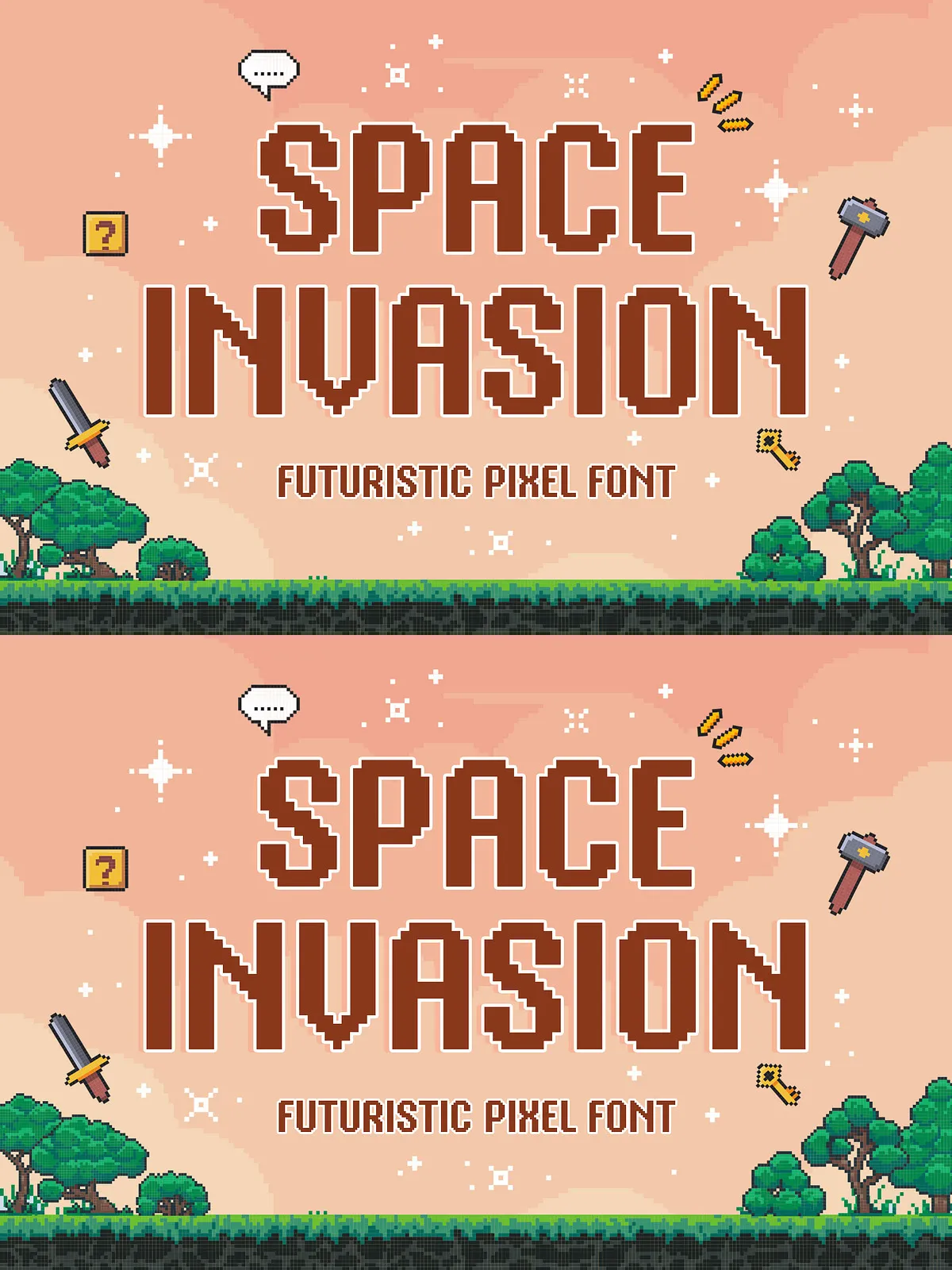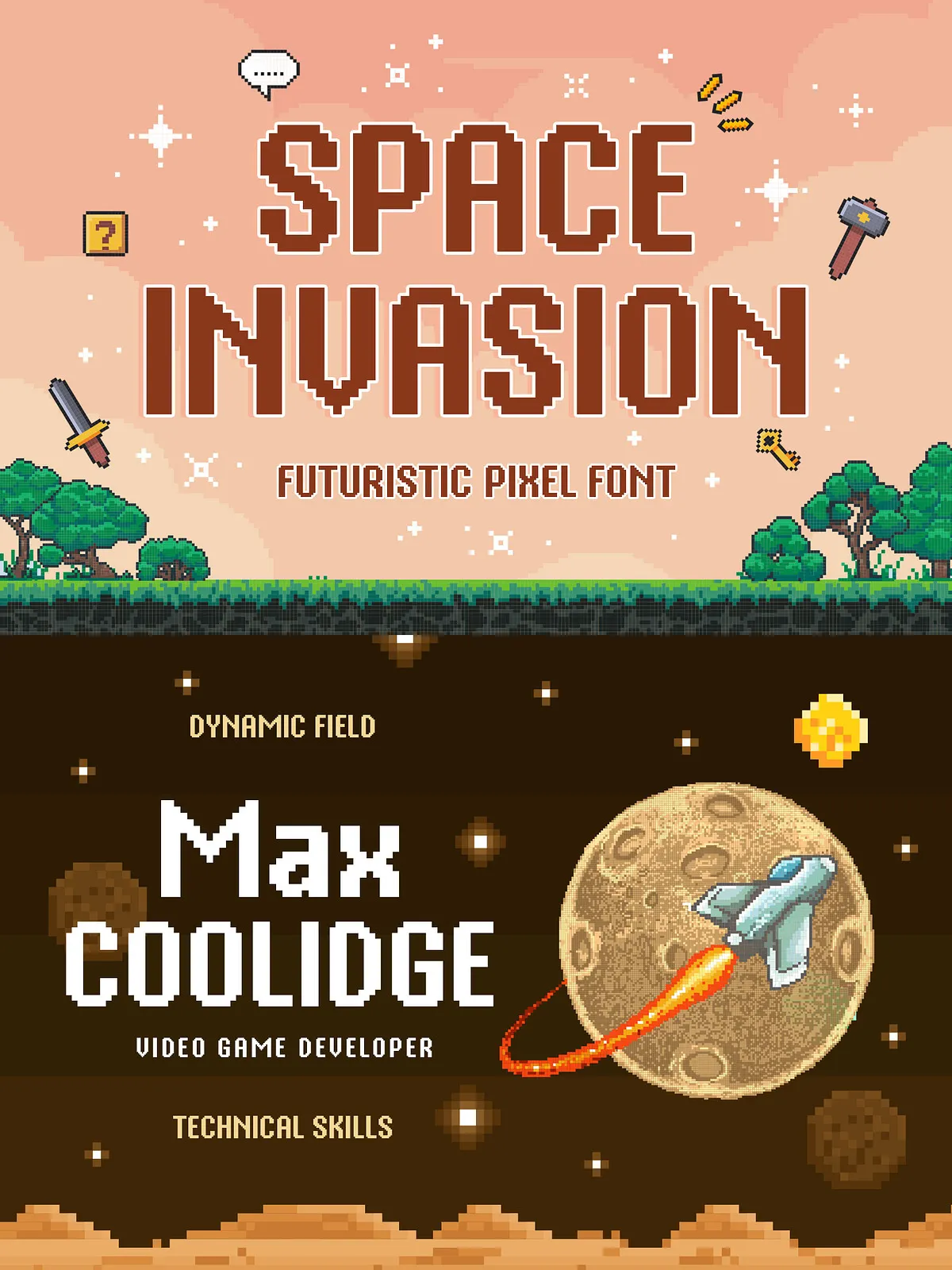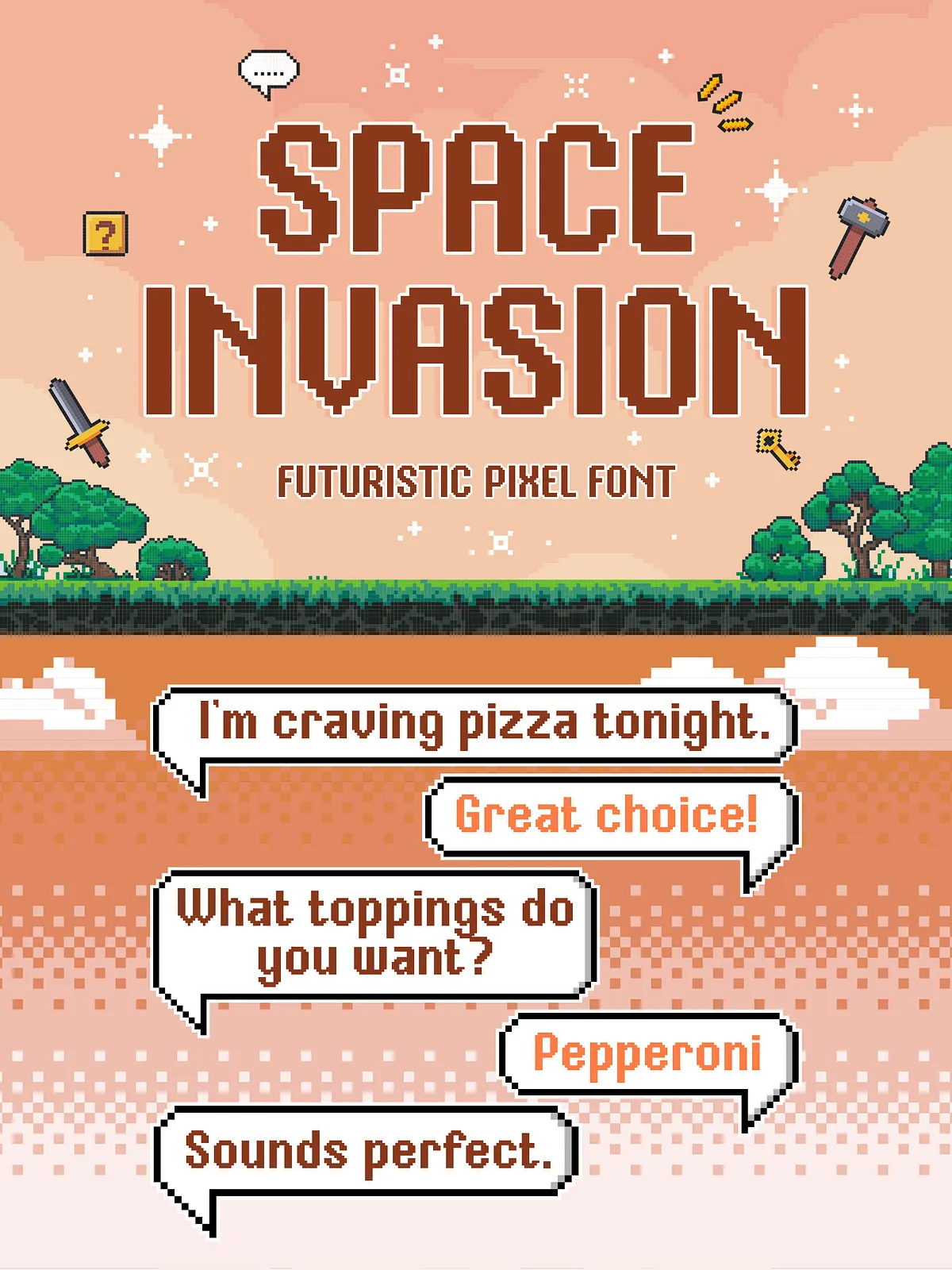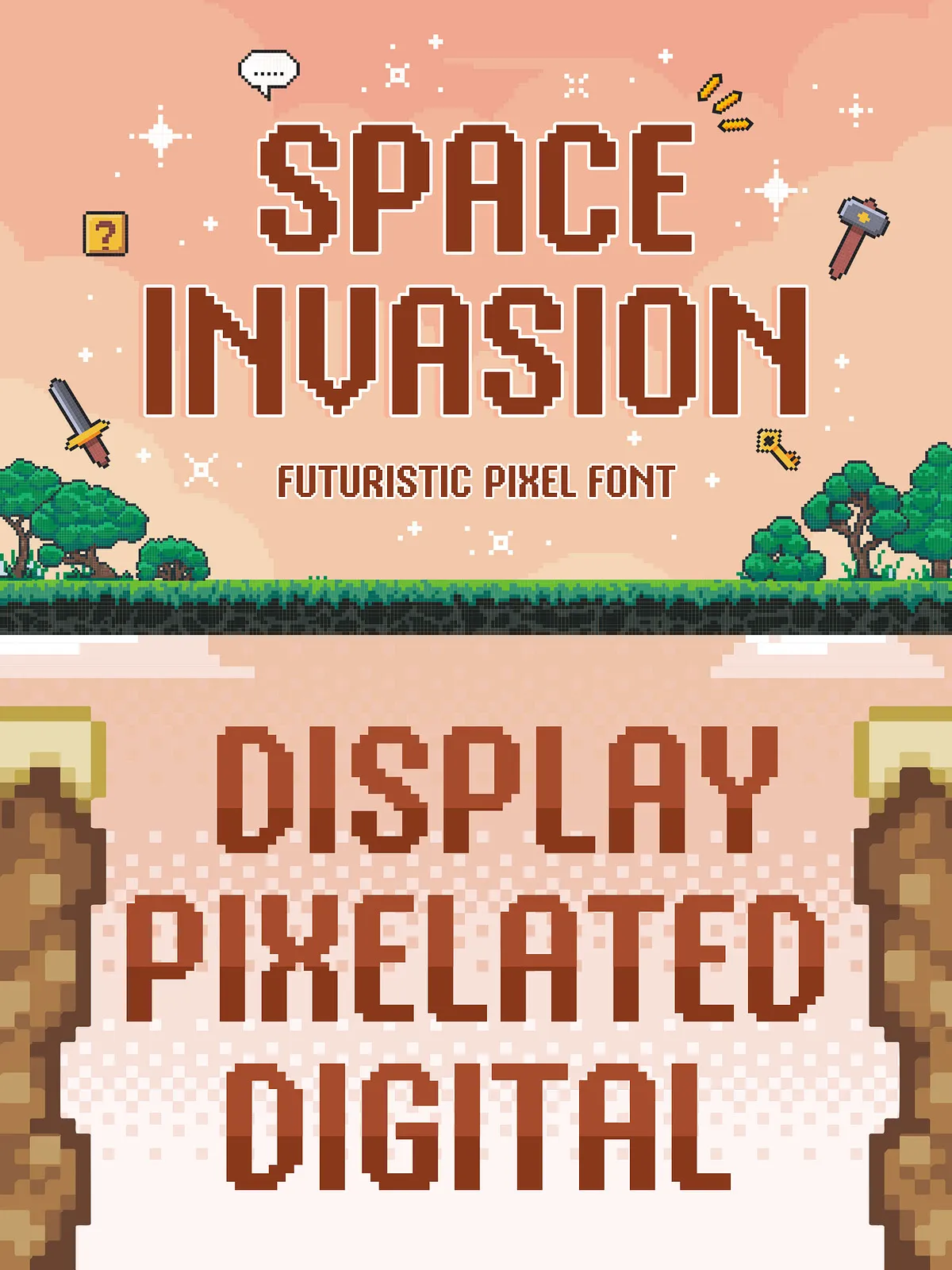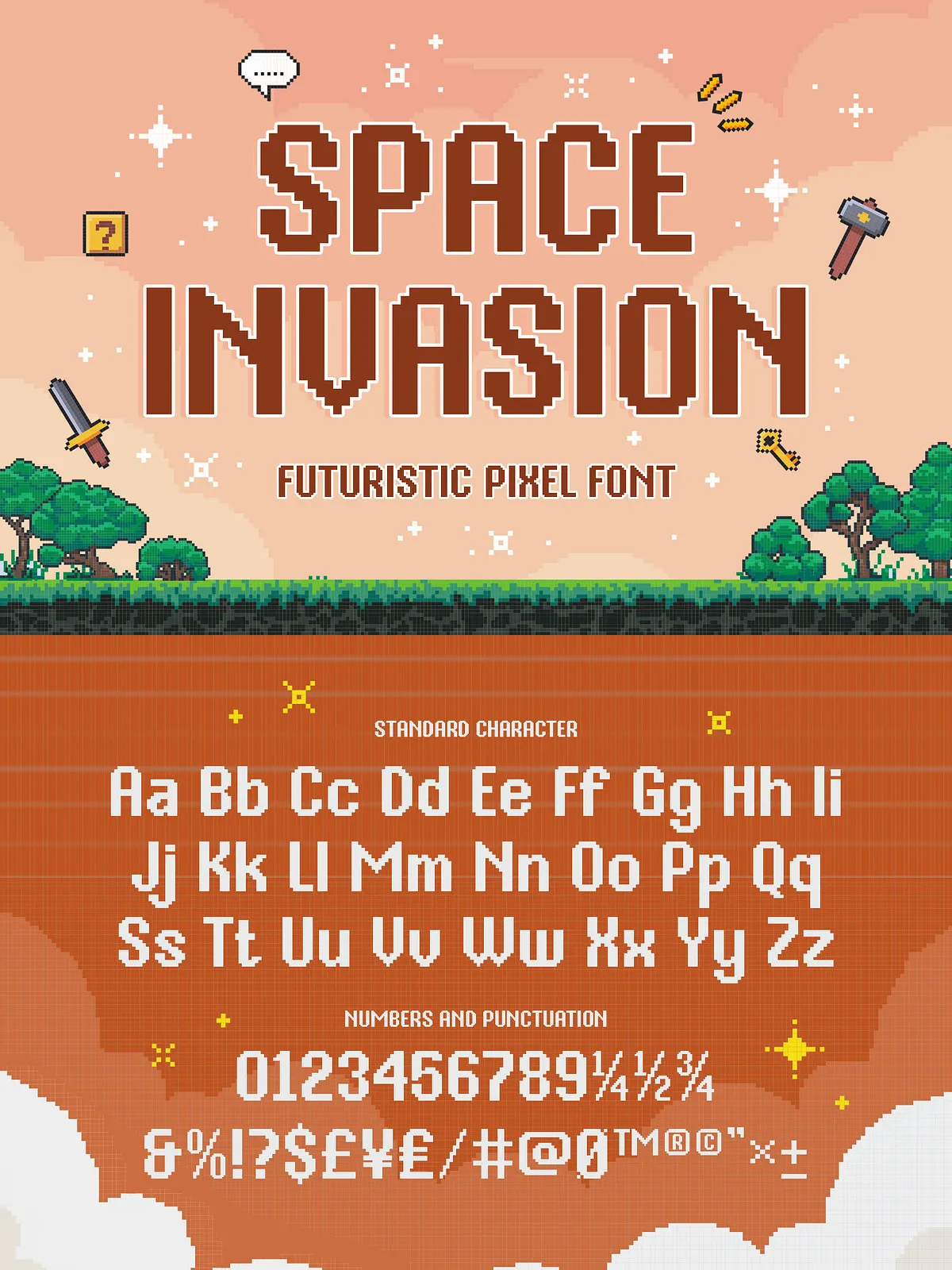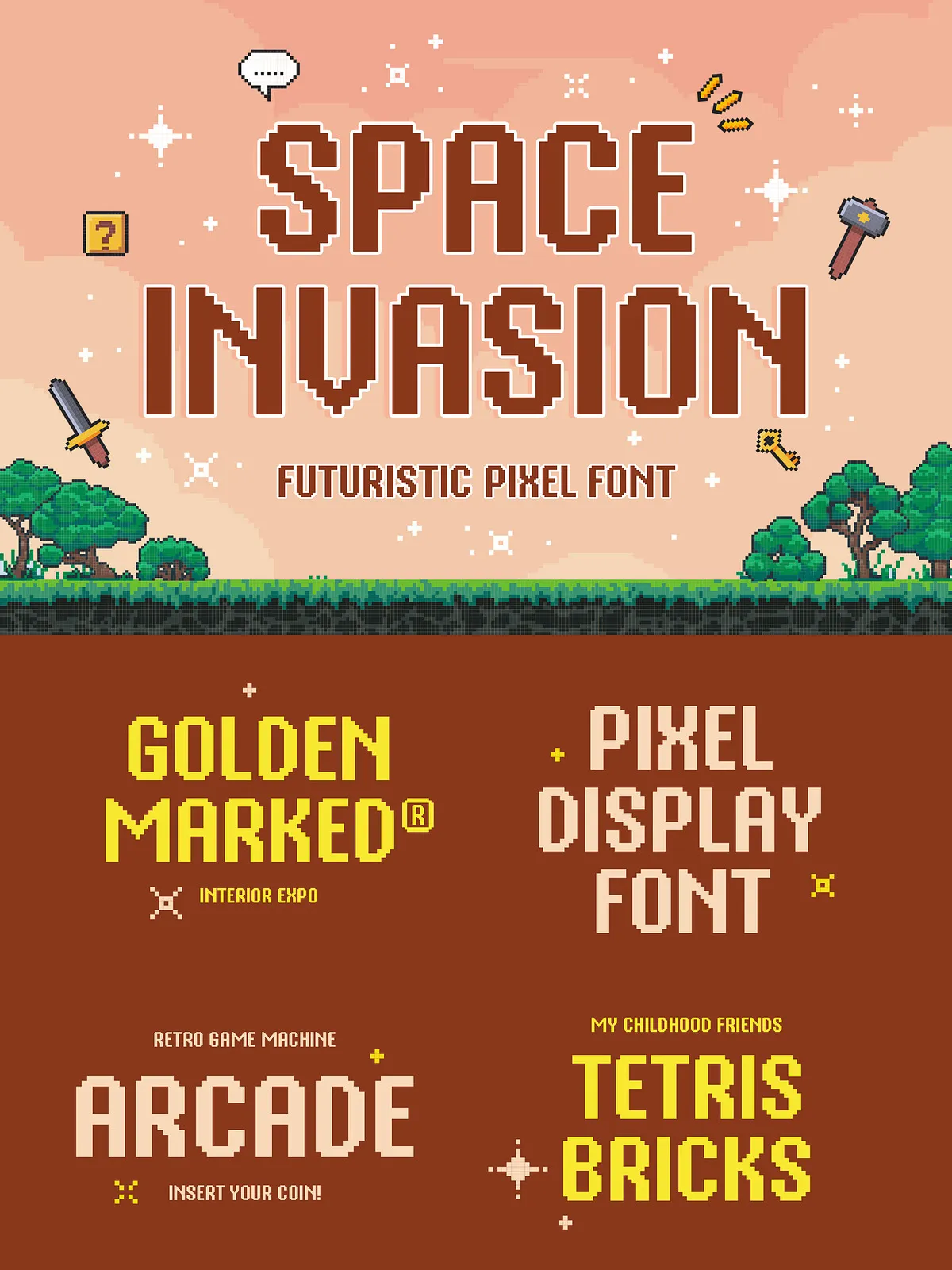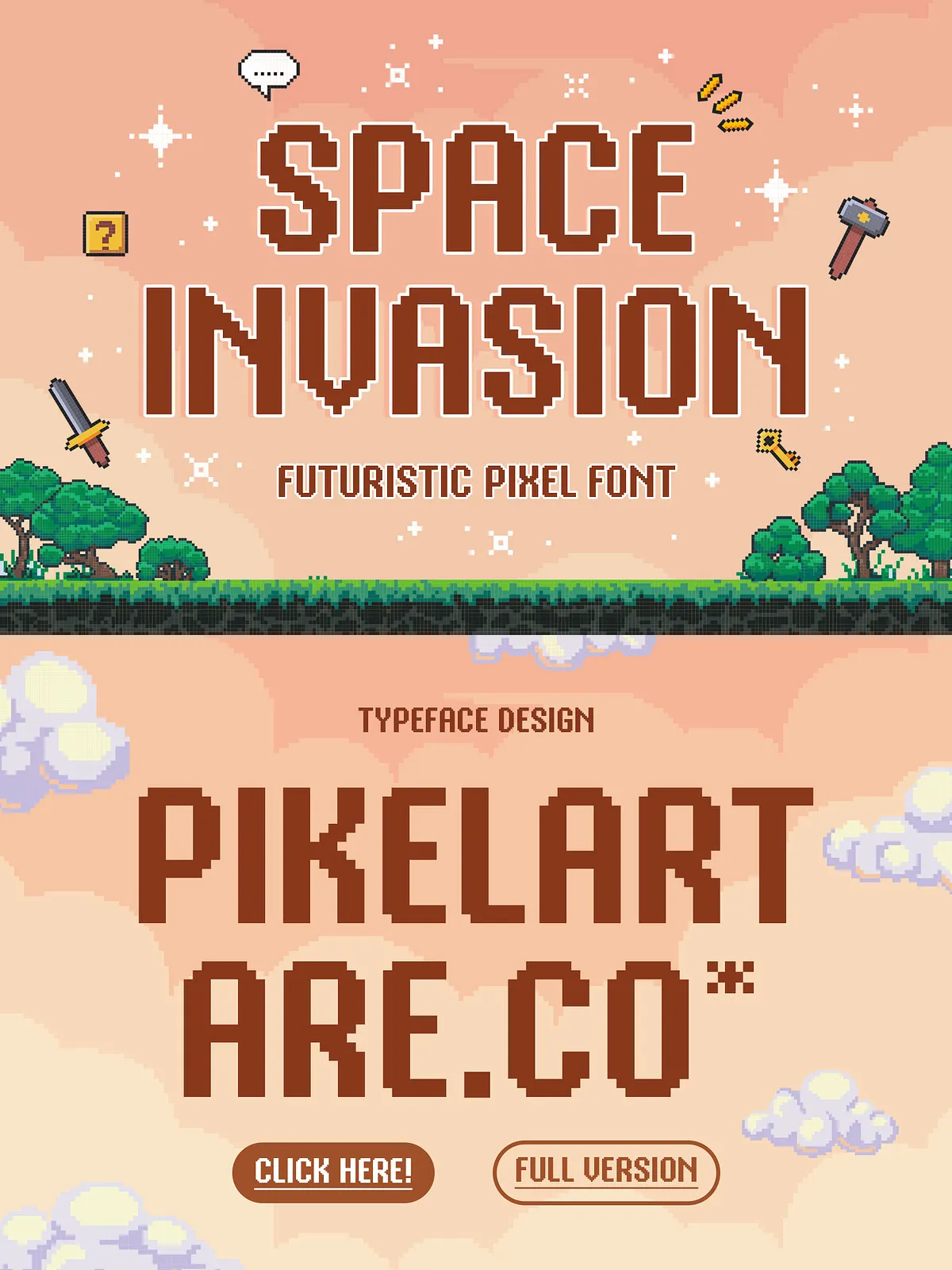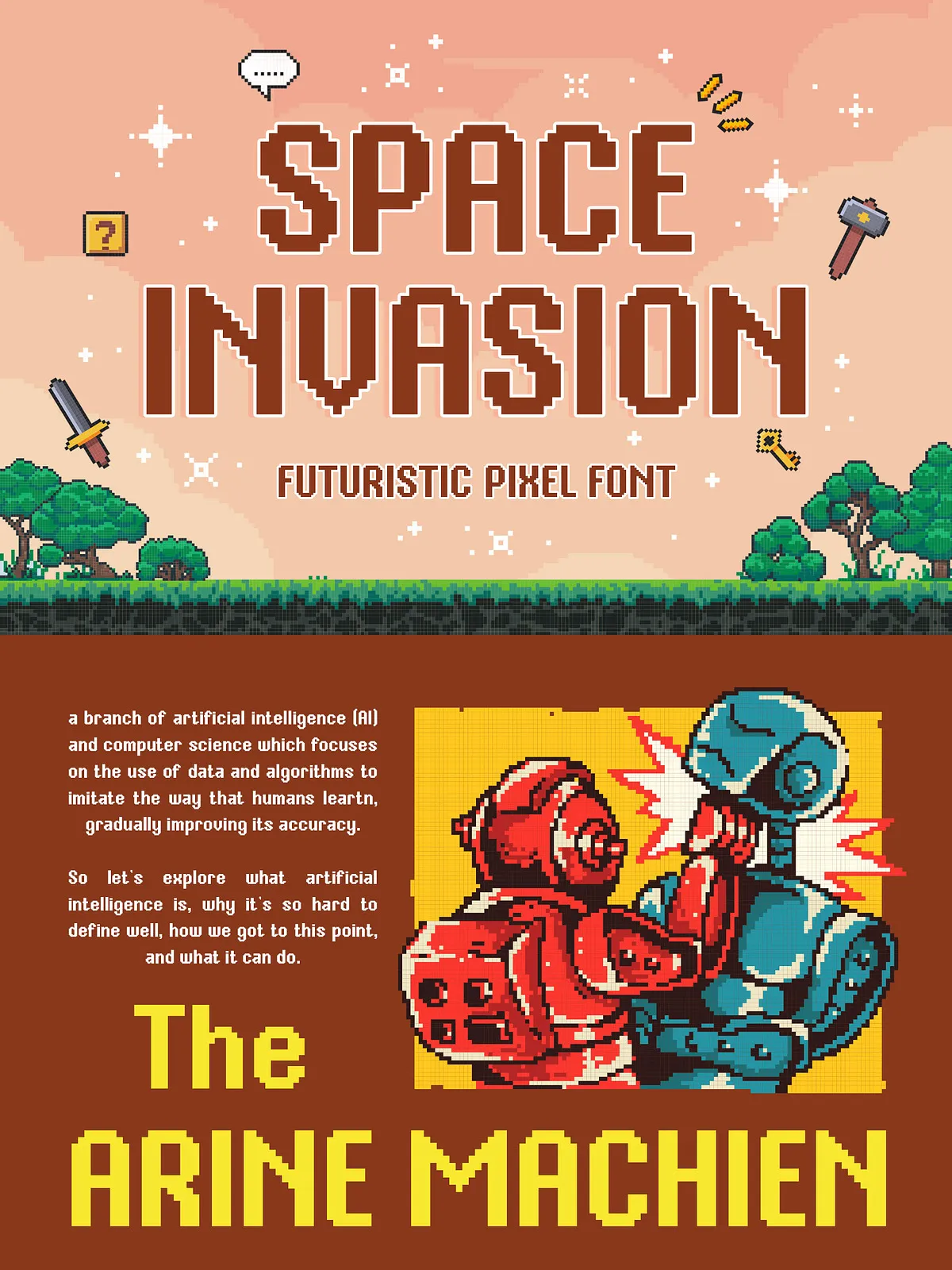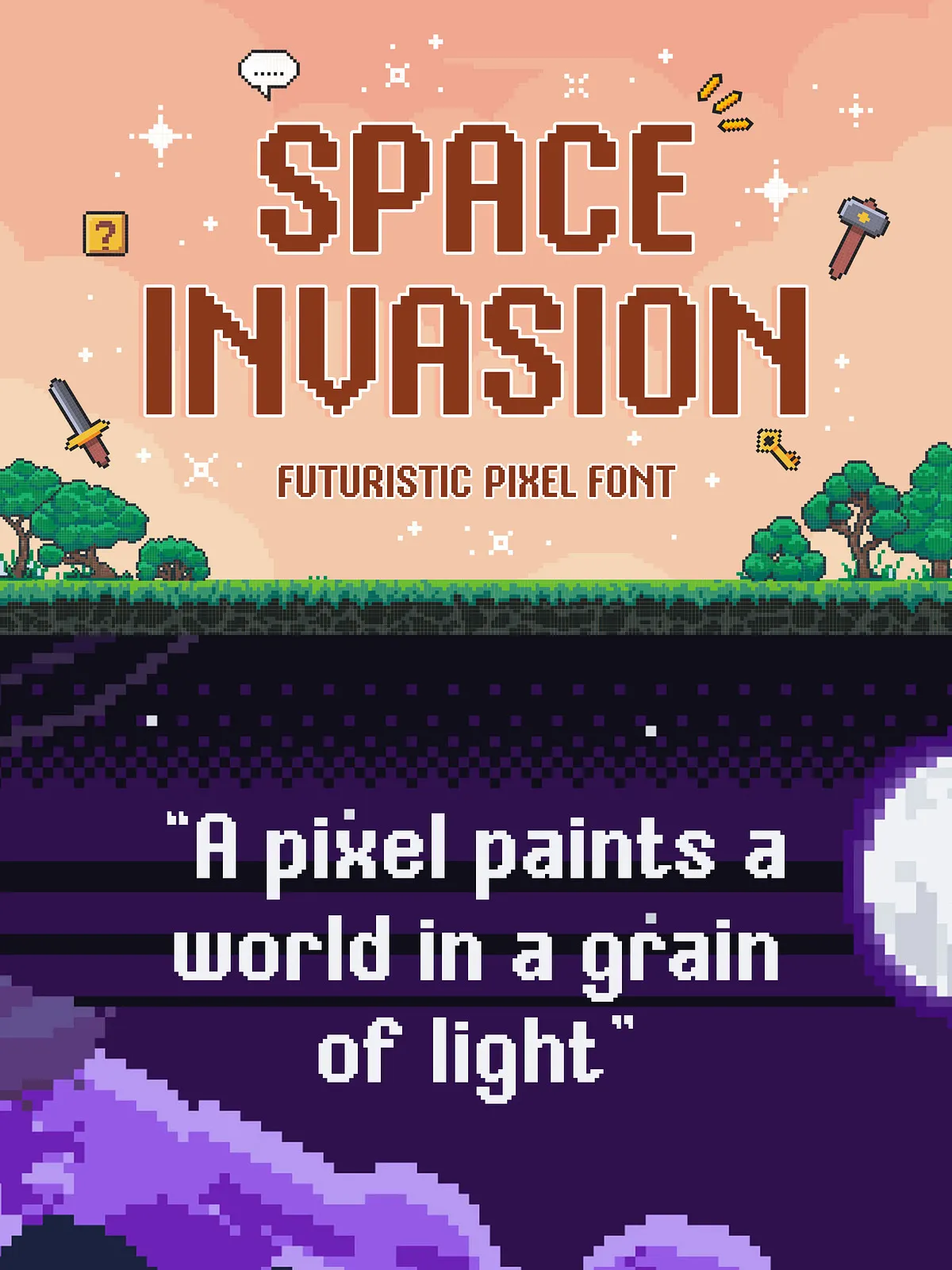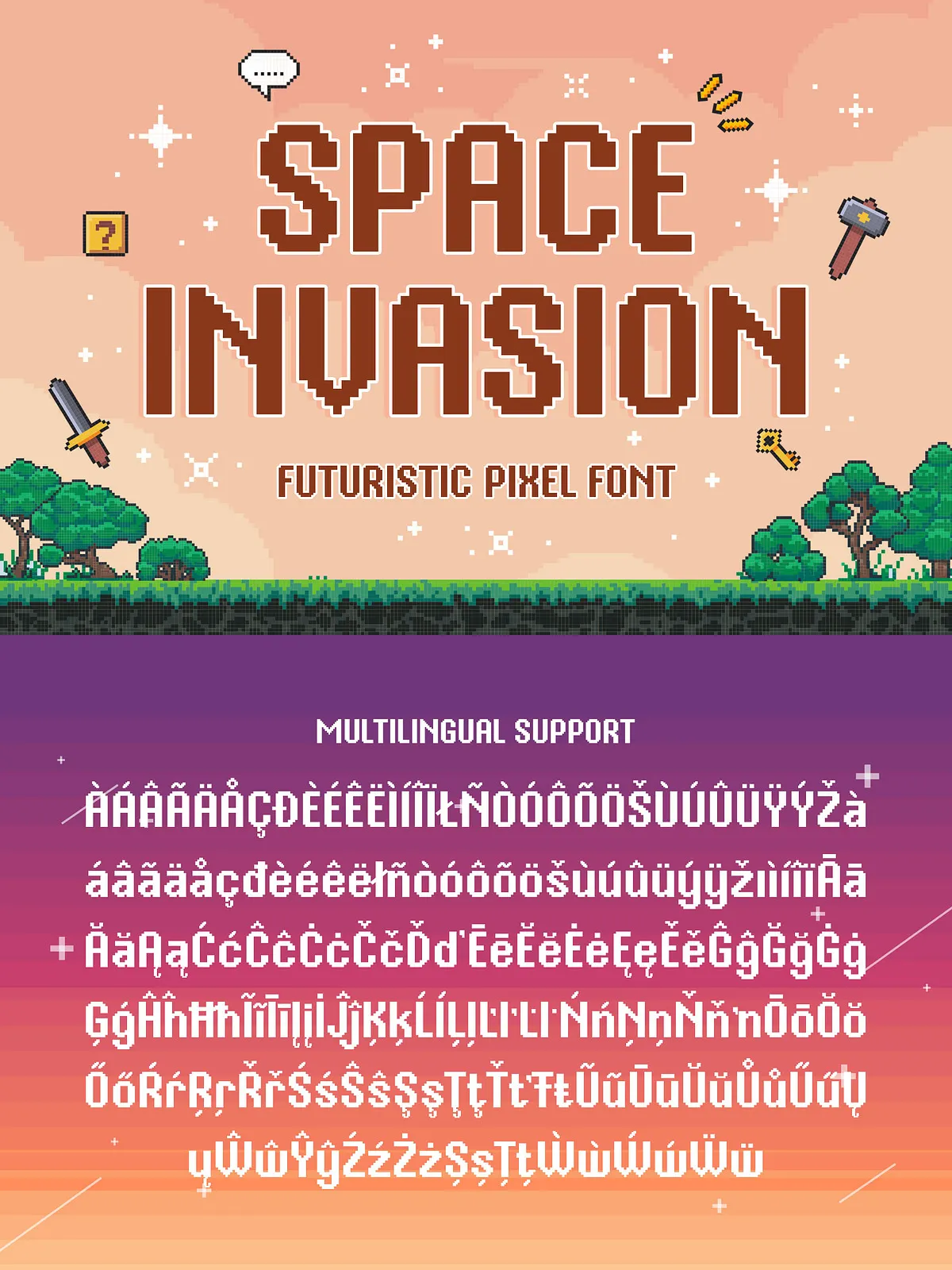
Space Invasion delivers a confident, pixel-perfect look that fuses retro arcade nostalgia with futuristic cyber aesthetics. Designed for visual impact, this typeface energizes game titles, pixel art, websites, and UI elements with crisp, square-edged glyphs that read clearly at small sizes and command attention at display scale. Whether you’re building a vintage arcade interface, a sci-fi poster, or a neon-drenched cyberpunk site, Space Invasion transforms your text into a cohesive part of the visual narrative.
- Pixel-Perfect Construction: Each glyph is crafted on a pixel grid to ensure clean rendering at low resolutions and crisp edges for retro-styled projects.
- Retro-Futuristic Tone: The design channels classic arcade and 8-bit character while projecting a modern, tech-forward attitude suitable for contemporary layouts.
- High Readability: Optimized counters and consistent stroke weight preserve legibility in menus, HUDs, and small UI elements.
- Versatile Display Use: Effective for headlines, logos, in-game text, banners, and digital signage where stylized, compact lettering performs best.
- Complete Basic Glyph Set: Includes uppercase, lowercase, numbers, punctuation, symbols, and accented characters for broad language support.
Included Character Sets
Glyph Coverage
Space Invasion ships with a comprehensive set of characters that support most Western languages and pixel-based design needs. The font package includes:
- Uppercase alphabet
- Lowercase alphabet
- Numerals (0–9) with pixel-optimized forms
- Punctuation and common symbols
- Accented characters for Western European languages
Practical Applications
Game Design & UI
Space Invasion excels in retro and indie game projects. Use it for titles, scoreboards, in-game menus, and HUD elements. The pixel grid alignment simplifies layout work for sprite-based screens and ensures consistent visual rhythm across terminals and consoles.
Websites & Digital Art
On websites and digital art pieces, Space Invasion lends a distinct, nostalgic voice. Use it for hero headlines, section headers, and promotional banners to inject a retro-futuristic vibe. The font pairs well with neon color palettes, scanline effects, and minimal, grid-based layouts.
Branding & Print
For branding, product packaging, or promotional posters that call for a vintage-tech identity, Space Invasion delivers a memorable aesthetic. Its bold, blocky shapes translate well to stickers, t-shirts, and event collateral that celebrate pixel culture.
- Size Behavior: Crafted to preserve clarity at small pixel sizes while remaining effective at large display scales.
Best Practices & Pairing Suggestions
Usage Tips
- Reserve Space Invasion for headlines, UI labels, and short blocks of display text where pixel clarity matters.
- Avoid using this font for long-form body copy; pair it with a neutral sans-serif for paragraphs and extended reading.
Pairing Recommendations
Combine Space Invasion with simple geometric sans-serifs or clean humanist typefaces to balance the rigid pixel aesthetic. For visual cohesion, use bold geometric shapes, high-contrast backgrounds, and subtle glow or scanline overlays.